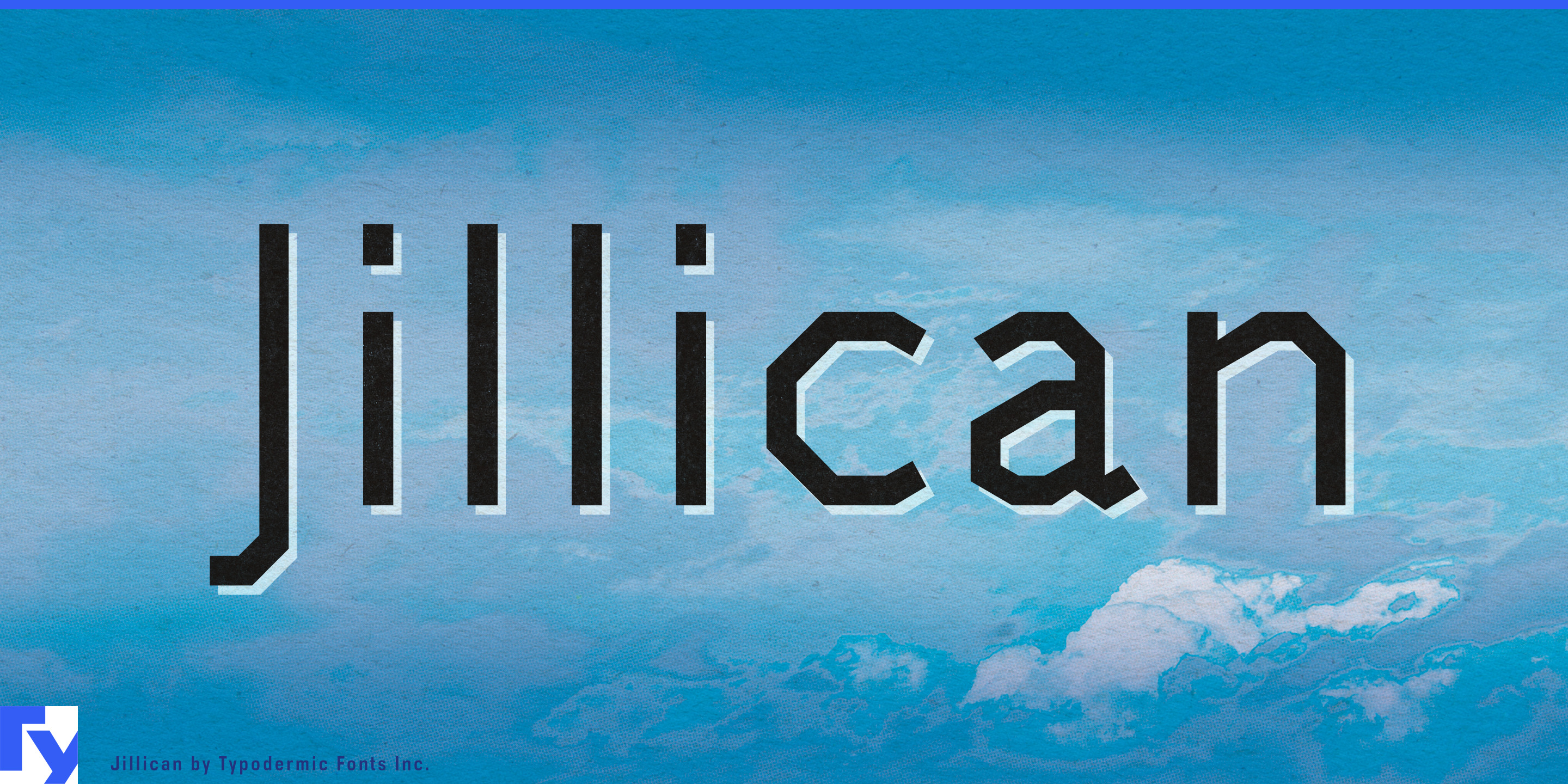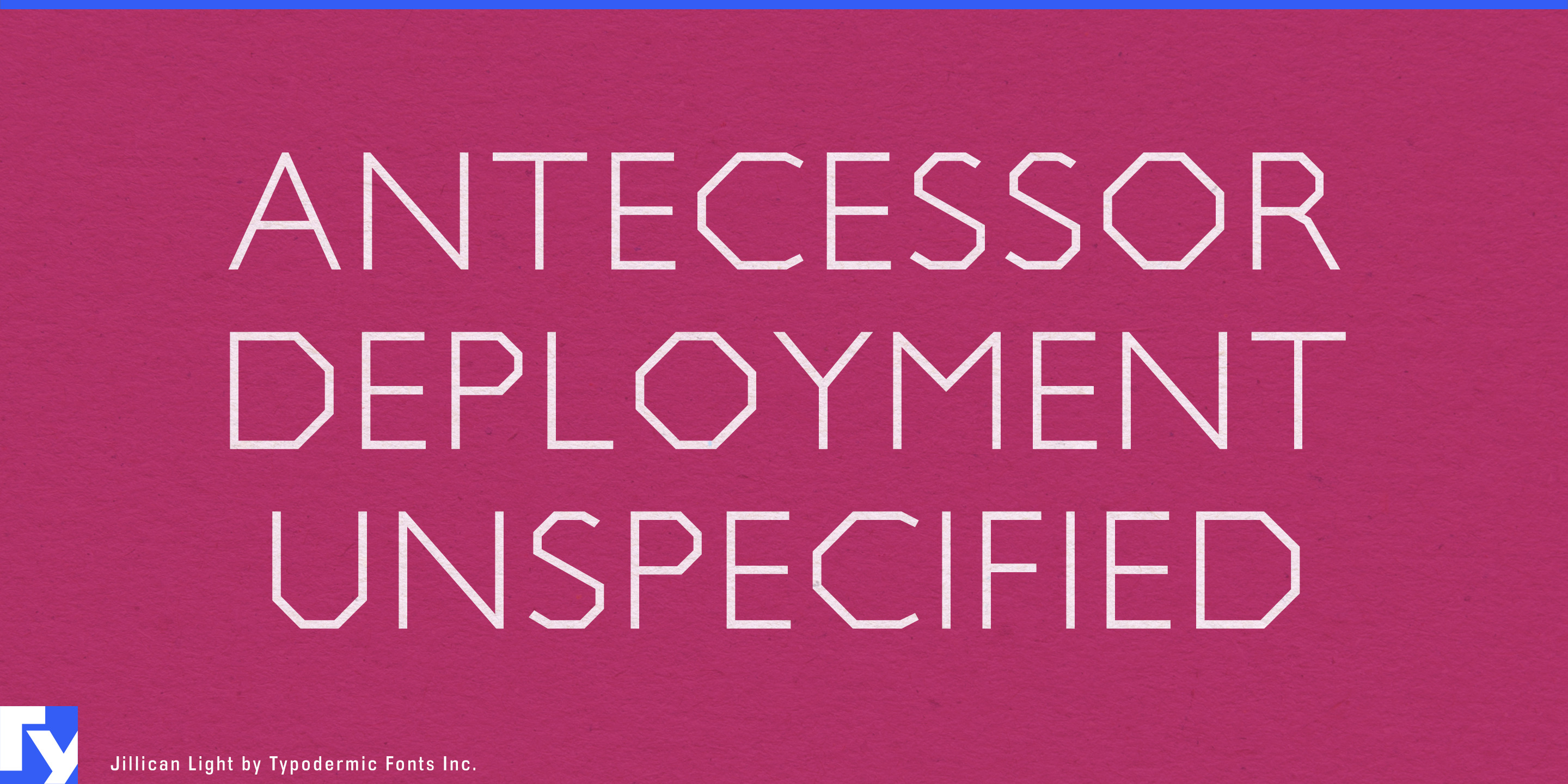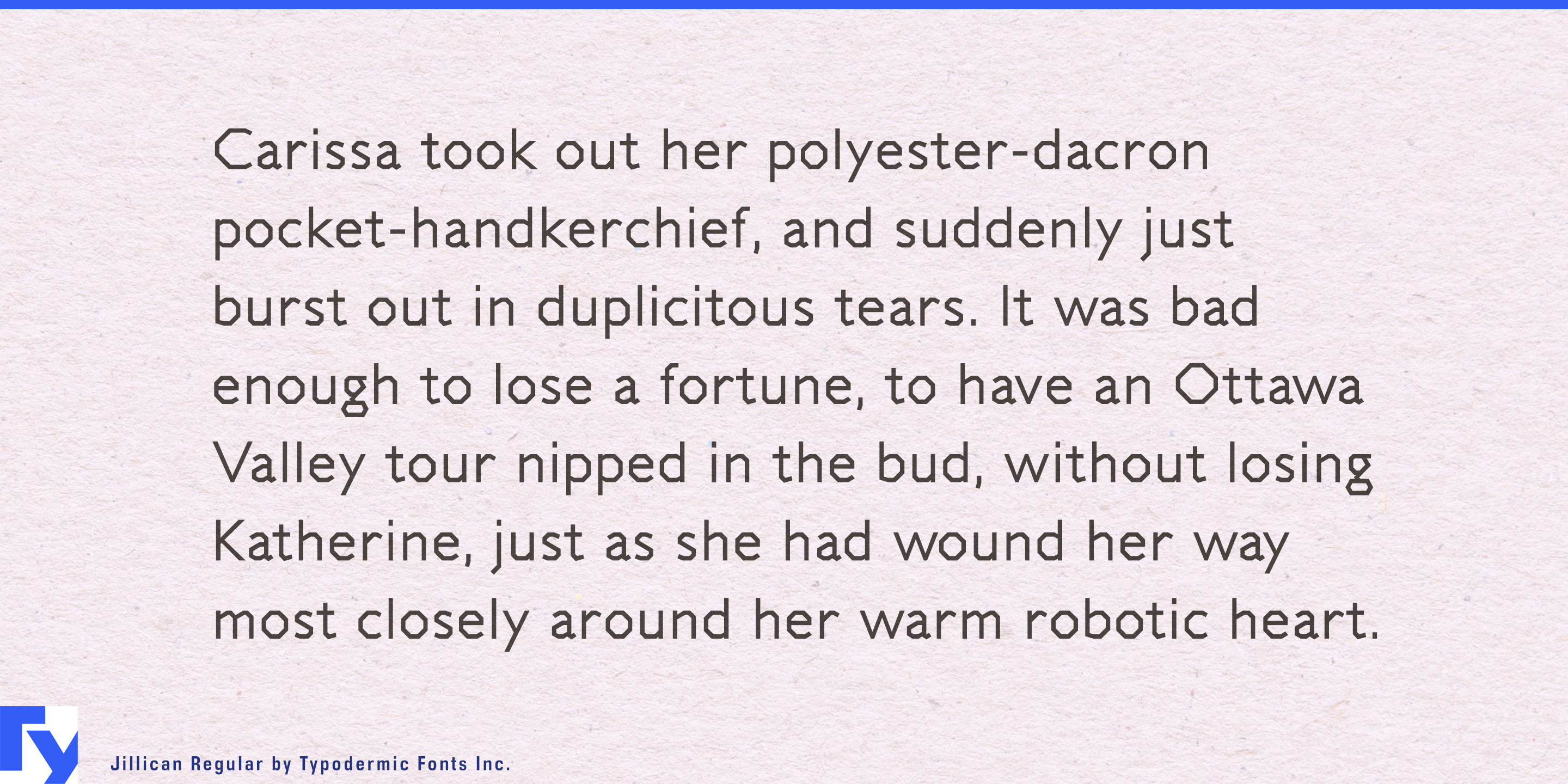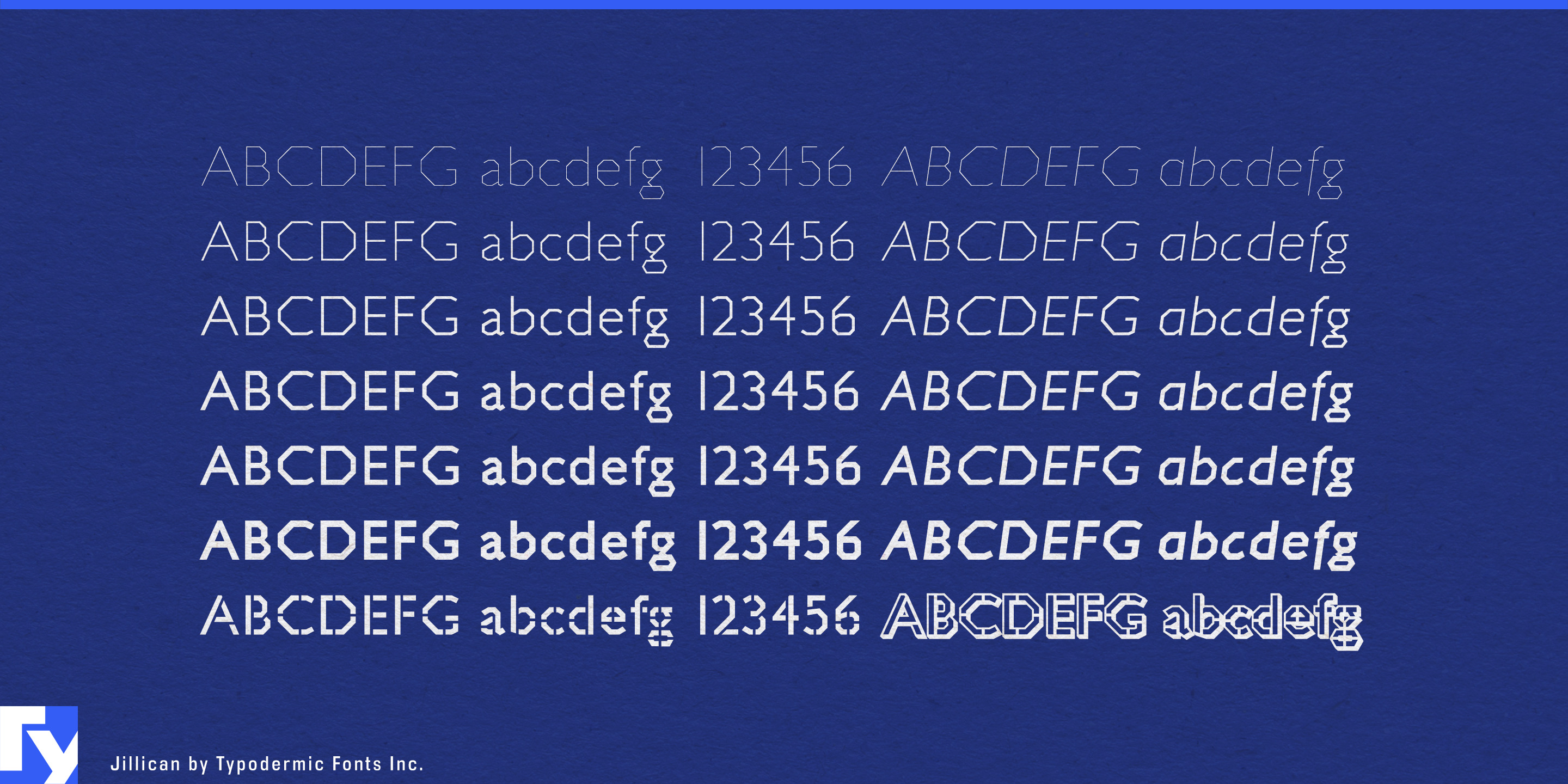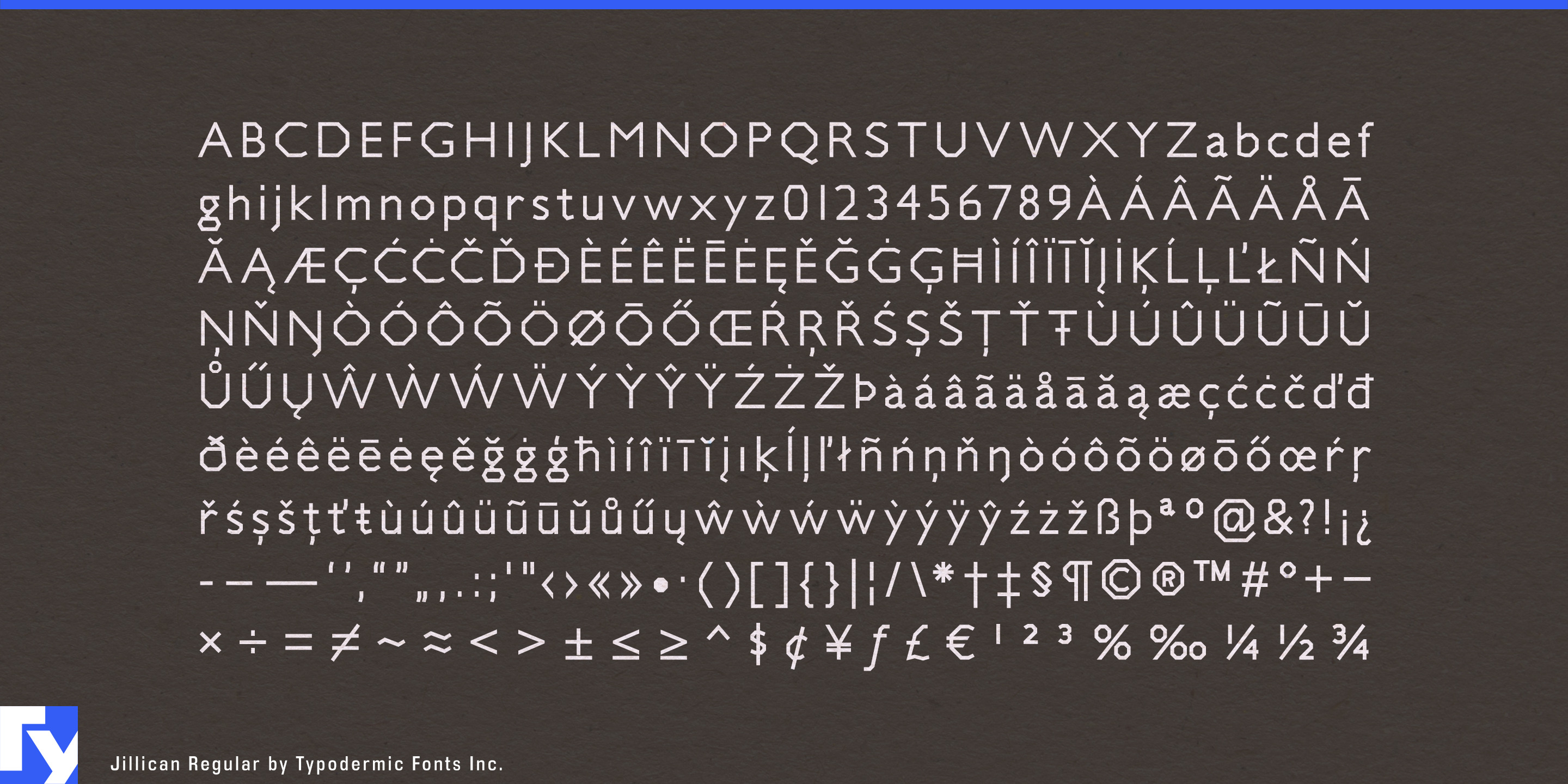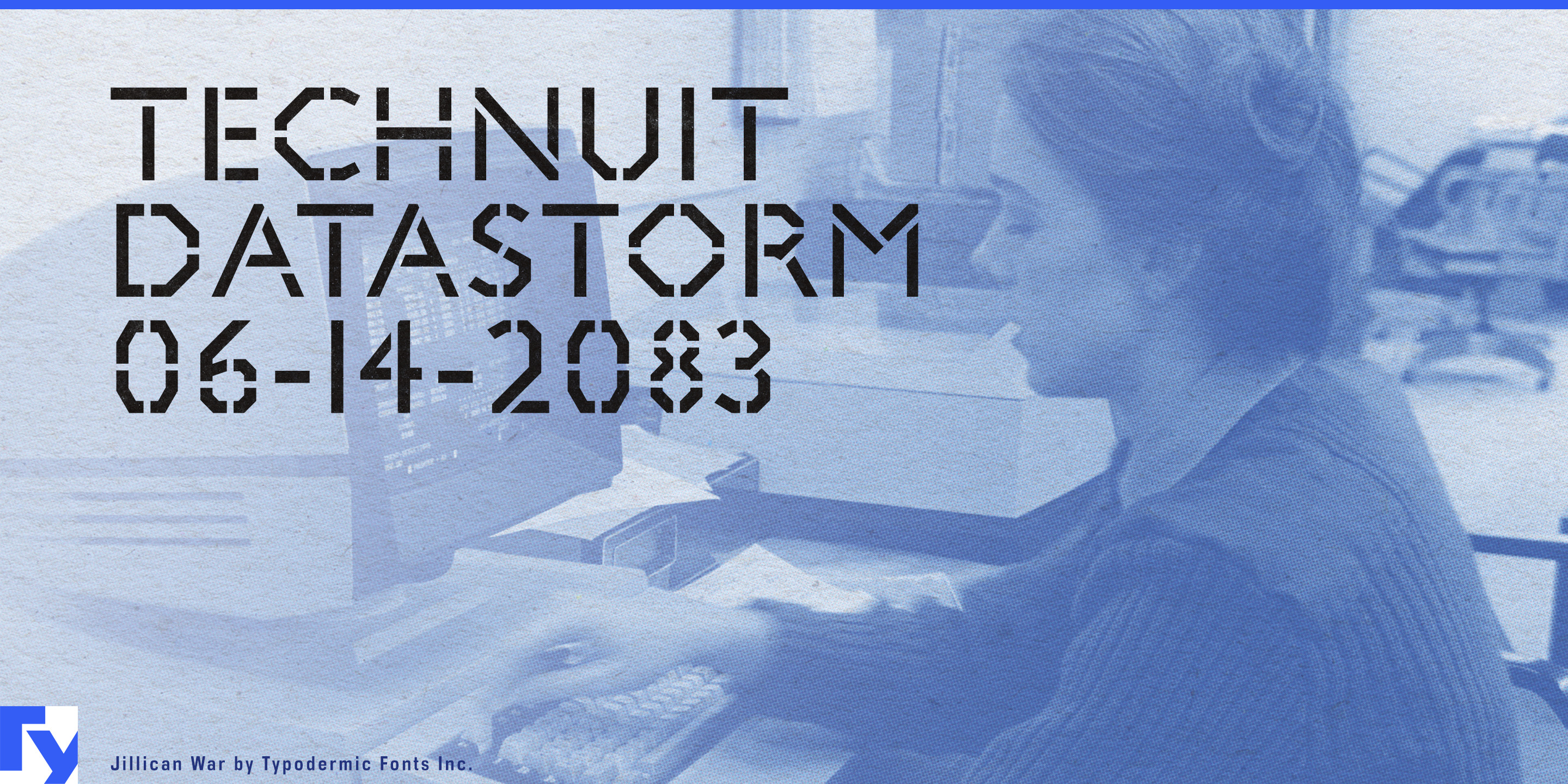
Jillican
Jillican rebuilds Gill Sans on an octagonal framework. It retains the familiar humanist proportions and British rhythm, then hardens them with boxier curves, clipped corners, and angular joints. The result has the recognizability of a British sans-serif but a cooler, more regimented character, with echoes of UK new wave and post-punk graphics.
The core family provides six weights with matching italics, allowing the same structure to carry both assertive display lines and orderly supporting information. In food branding, Jillican can organize savoury snack ranges, condiment lines, frozen-food packaging, restaurant groups, and food-hall graphics. Its weights can distinguish flavour names, menu categories, promotional copy, and product hierarchies without losing the identity’s harder edge.
The same disciplined tone suits football season identities, kit launches, stadium graphics, and sports broadcast packages. It can also support political-thriller titles, fictional government or faction graphics, strategy-game campaigns, and utility-fashion or technical-footwear launches.
Three display styles push the design into more militant territory. Jillican War introduces segmented stencil cuts while preserving the relatively light construction of the original. Jillican Warpaint adds irregular painted edges and thin drips, resembling lettering applied through a physical stencil. Jillican War 3D converts those stencil forms into dimensional lettering for campaign titles, pack fronts, team graphics, faction insignia, and large retail displays. Together, the styles provide several levels of intensity while maintaining the same octagonal Gill Sans foundation.